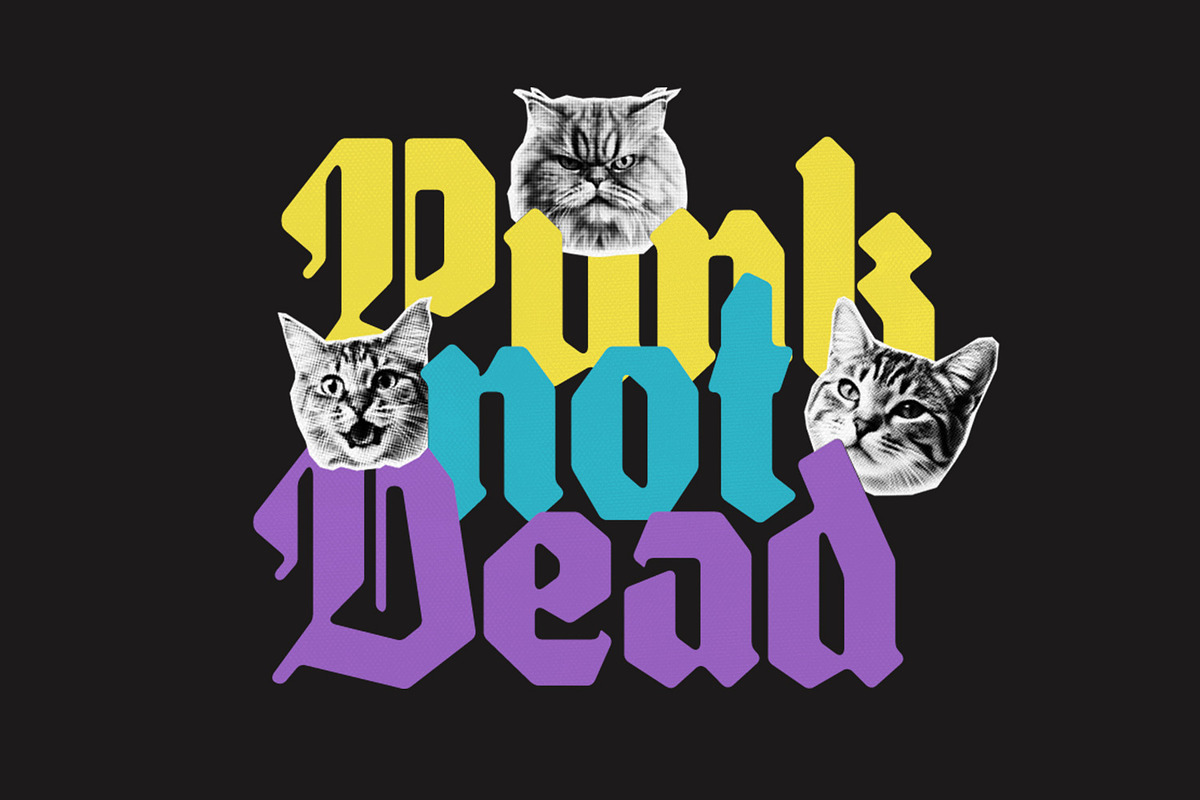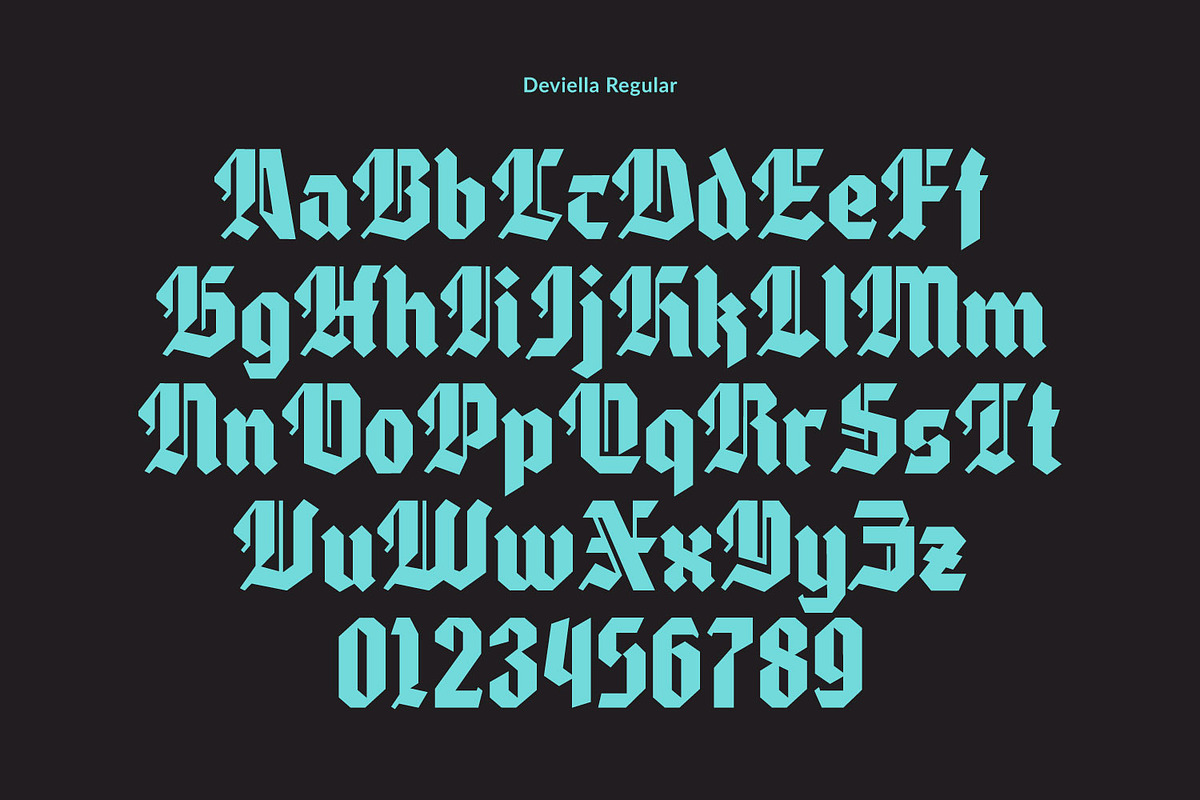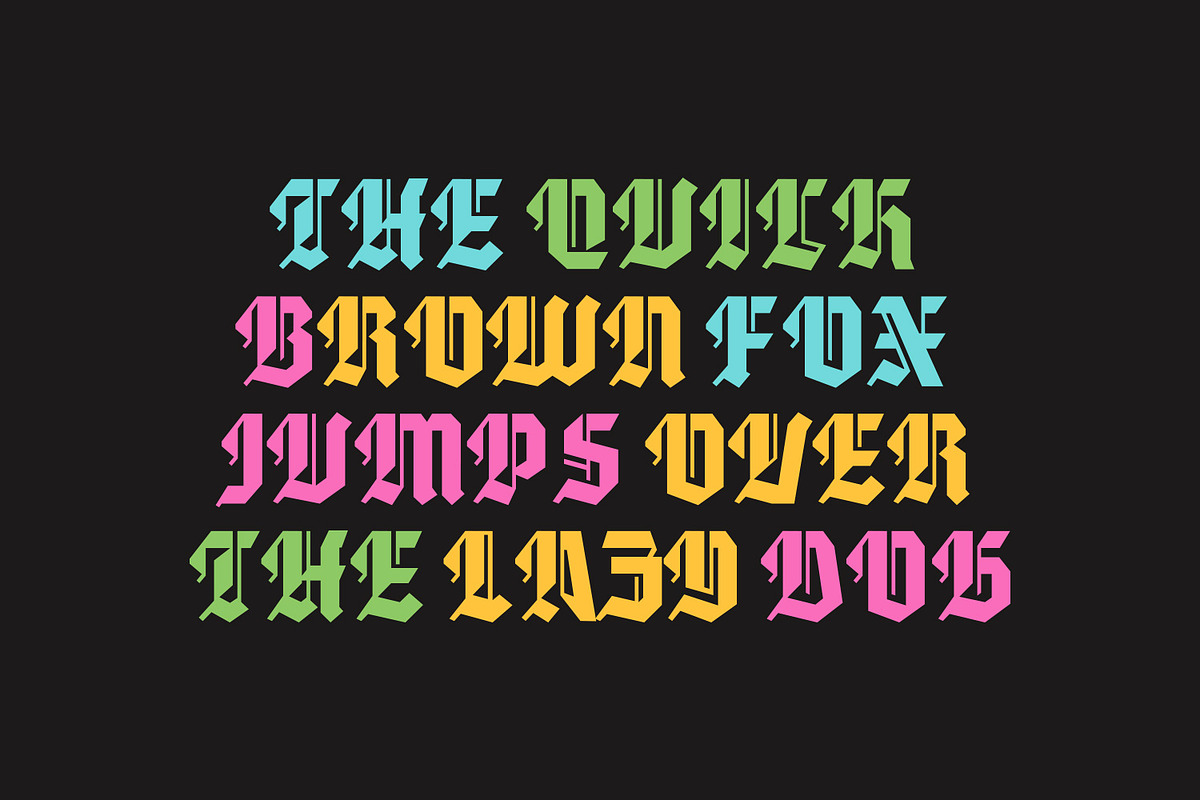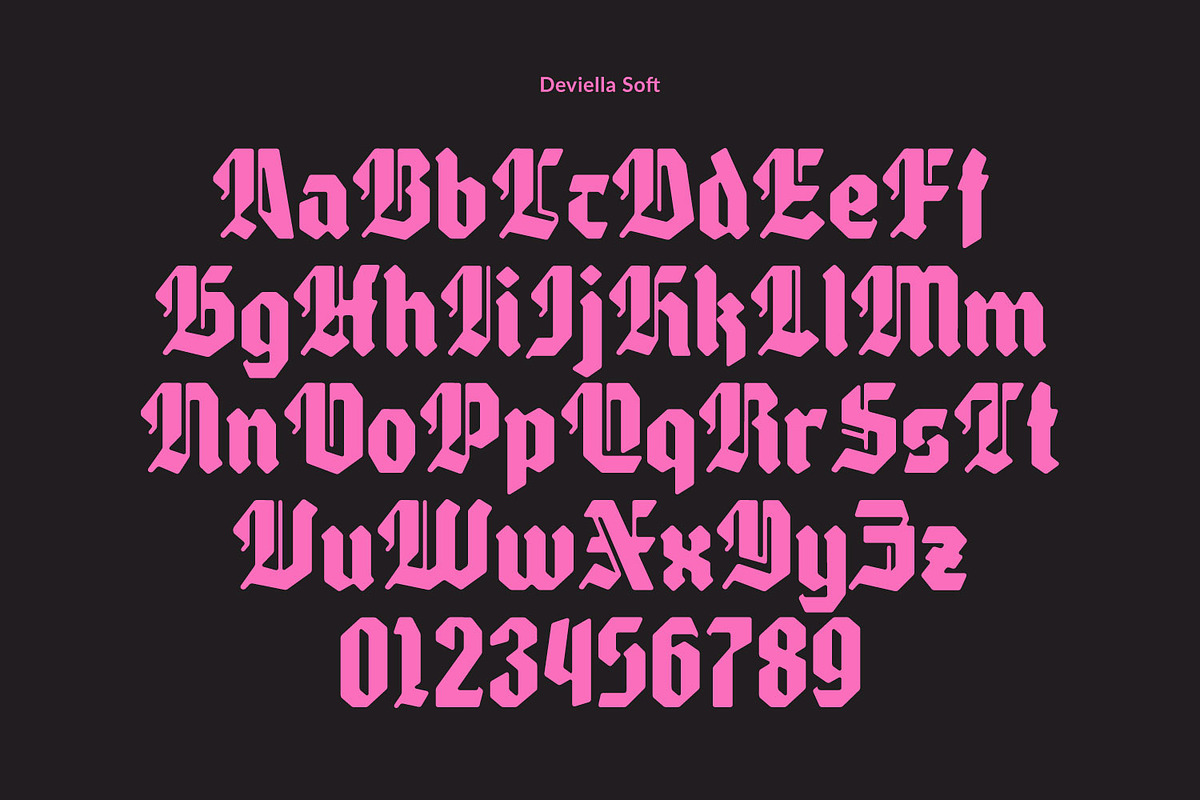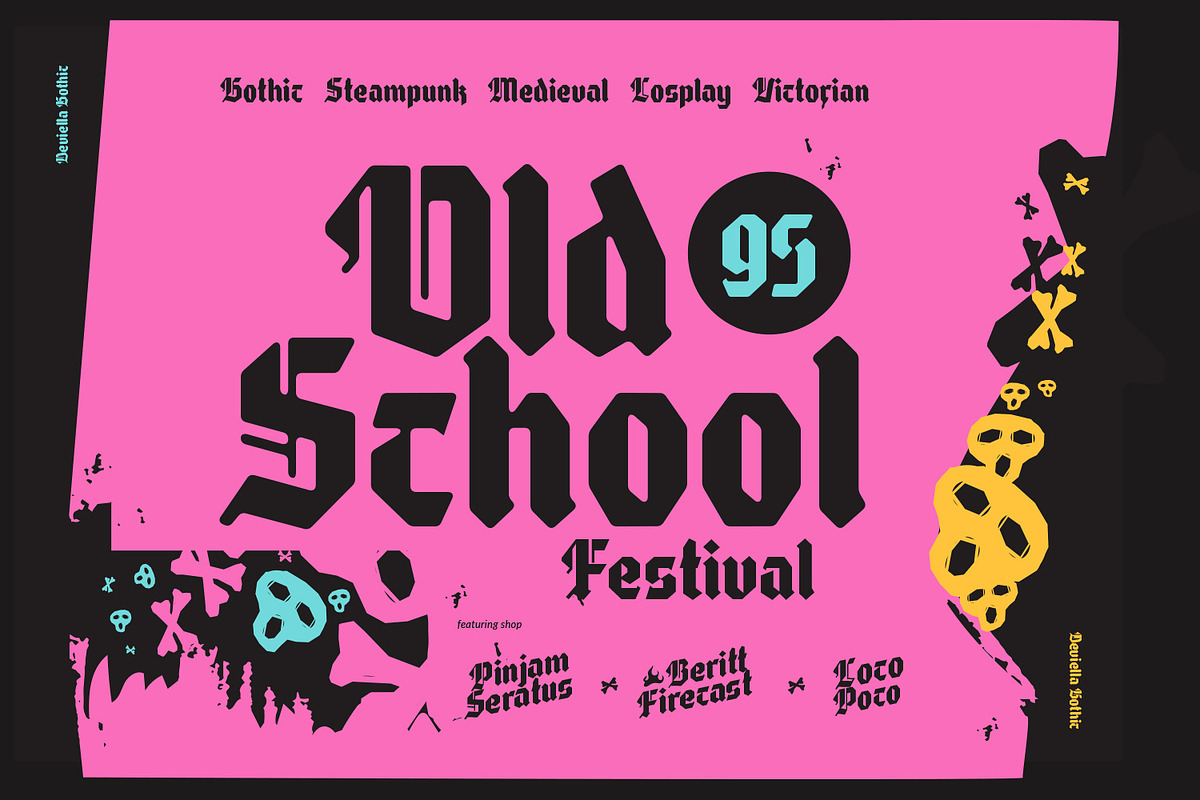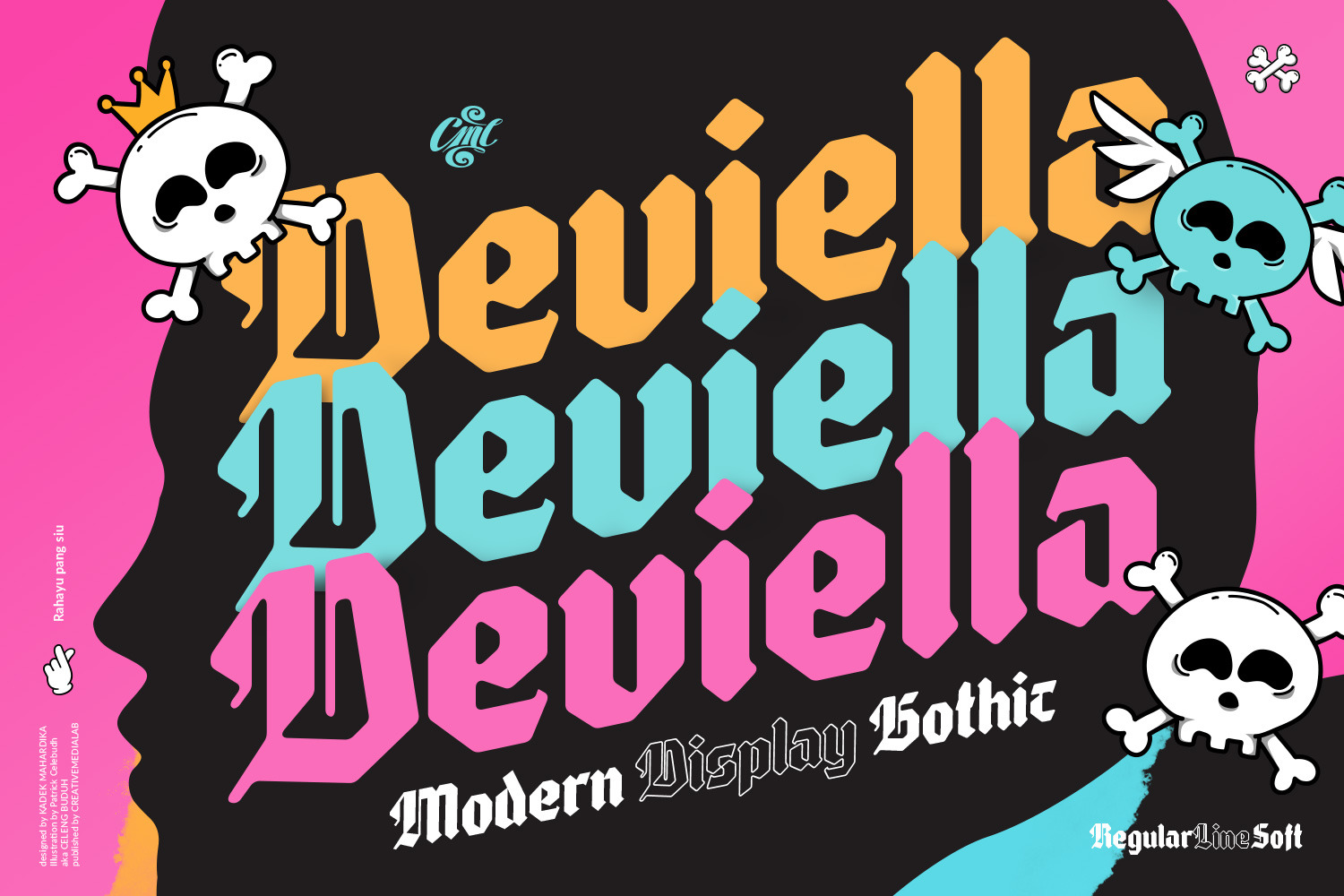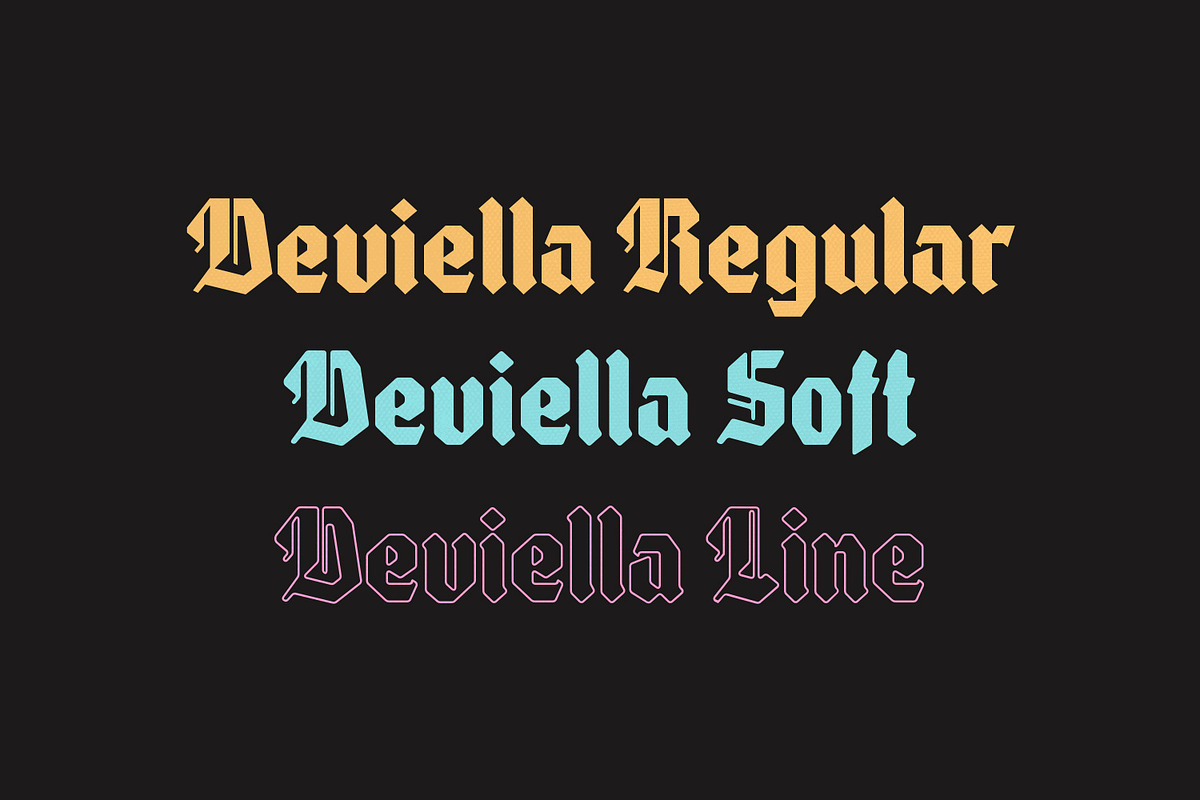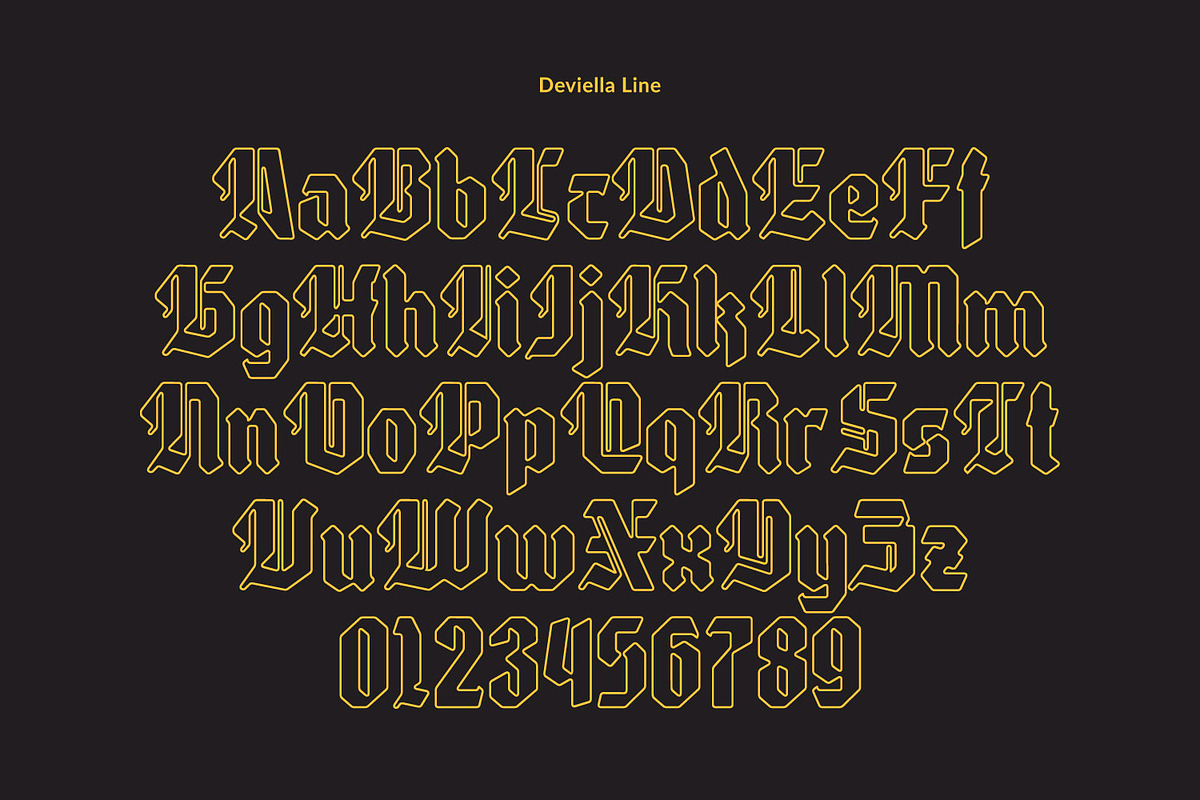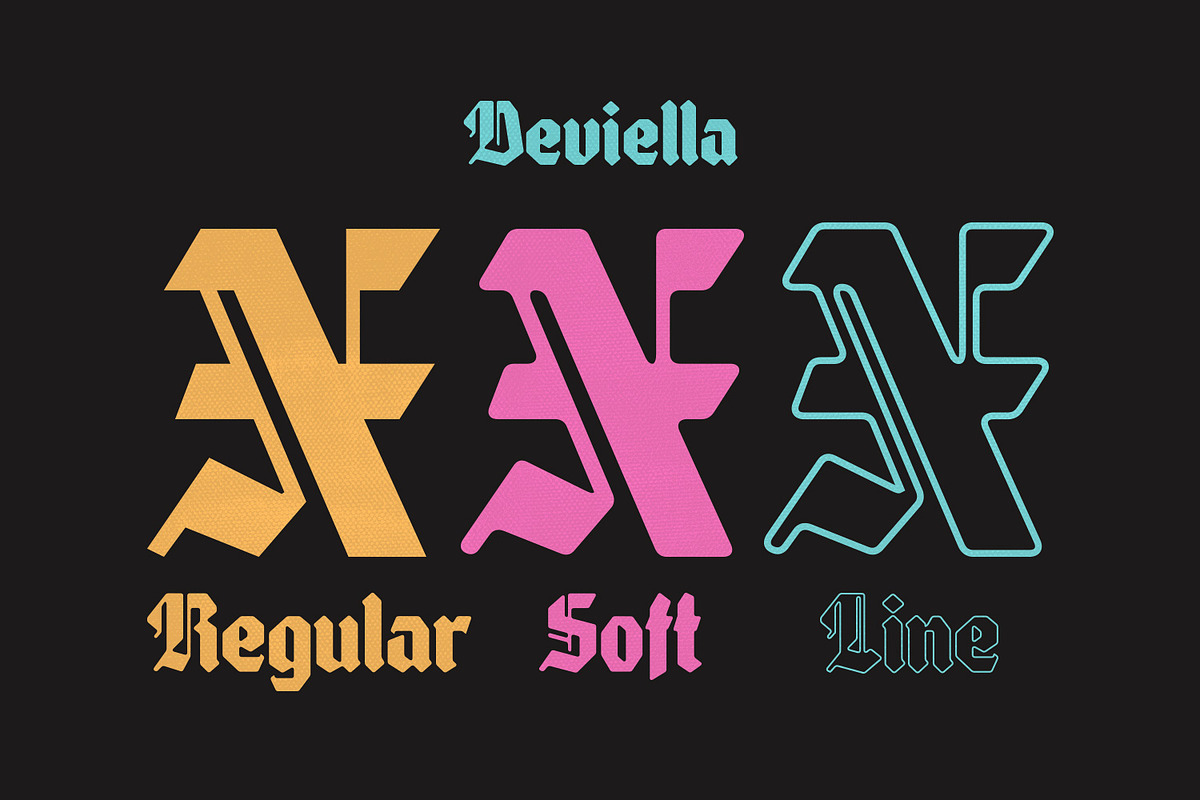
Deviella - Modern Gothic Font
Meet the Deviella, simple and minimal gothic blackletter font for your designs. Packed with 3 elaborate styles, it includes uppercase, lowercase, currency symbol, punctuation, and multilingual support. Perfect choice for clothing, labels, packaging, branding, or any gothic related projects.